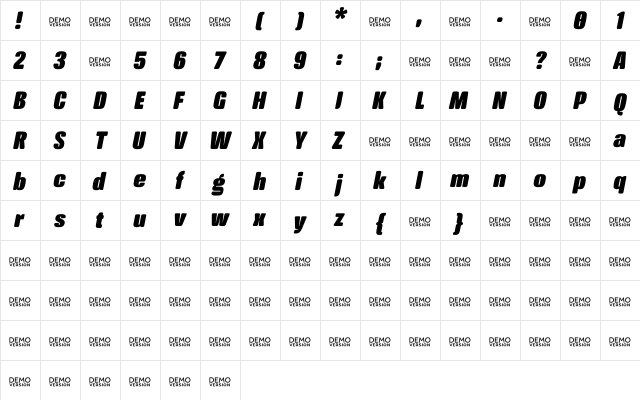
Crossfit Demo Heavy Italic
Design Context for Crossfit Demo Typeface
Crossfit Demo takes a measured approach to typography — its balanced proportions and neutral character make it a reliable workhorse for both digital and print work. The dynamic lean of this cut emphasises speed and emphasis in any layout.